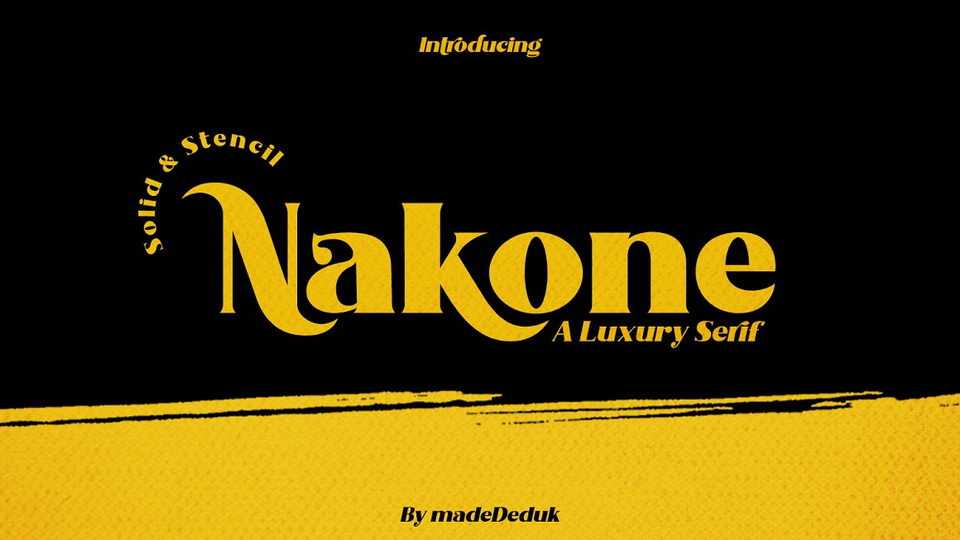
Download Nakone font, a luxury bold serif typeface with a lot of stylish alternates. Its elegant yet solid style will make Nakone suitable for your any project design.